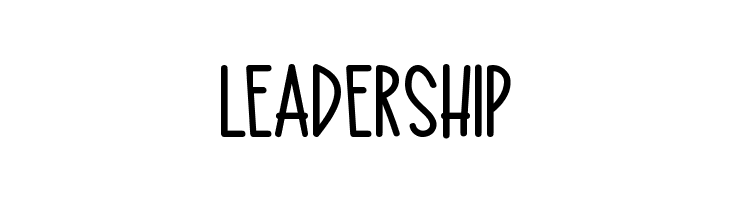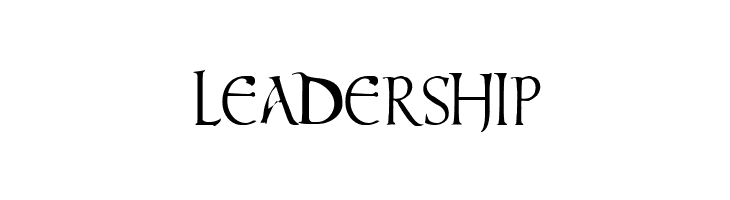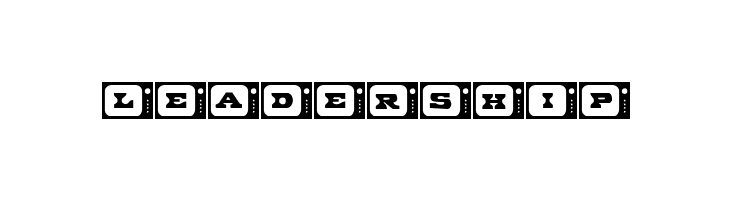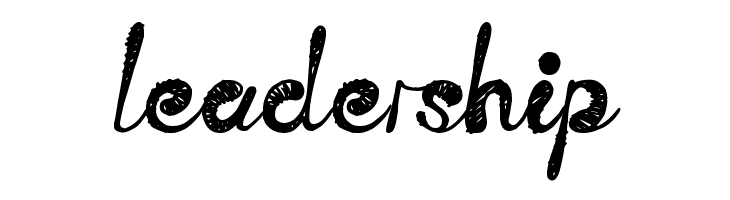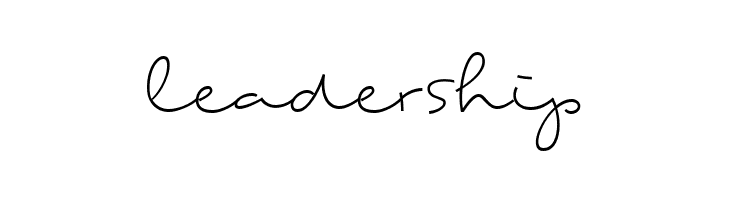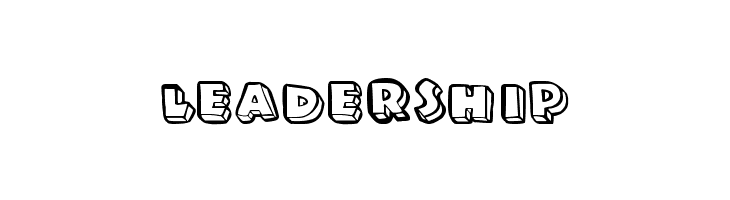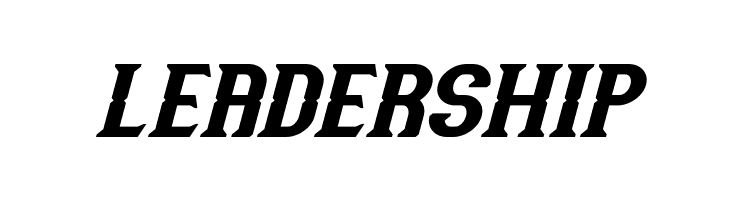
A playful, bold font with characters enclosed in hand-drawn boxes.
A jagged, hand-drawn font with a raw and dynamic style.
A bold, rounded, and playful font with a cohesive and friendly appearance.
A playful, hand-drawn font with rounded edges and even spacing.
A playful, hand-drawn font with a textured, whimsical style.
A bold, brush-style font with dynamic, hand-painted strokes.
A futuristic, geometric font with clean lines and angular shapes.
A bold, italic font with decorative diamond accents and dynamic style.
A bold serif font with high contrast and sharp serifs, blending traditional and modern styles.
A modern, rounded sans-serif font with clean lines and uniform stroke width.
A playful, hand-drawn font with tall, narrow letters and a modern, informal style.
A dynamic and fluid script font with elegant, flowing letterforms.
A playful, handwritten font with fluid strokes and a casual style.
A whimsical, hand-drawn font with playful curls and swirls.
A bold, playful font with characters on individual blocks, resembling cut-out letters.
A playful, cartoon-like font with quirky characters and expressive features.
A bold, angular font with a modern, geometric style.
A bold, italicized font with a modern, angular design.
A playful, bold 3D font with a cartoonish style and thick outlines.
A bold, distressed font with a rugged, weathered appearance.
A casual, handwritten font with smooth, flowing strokes and medium thickness.
A playful, bold outline font with rounded edges and a cartoonish style.